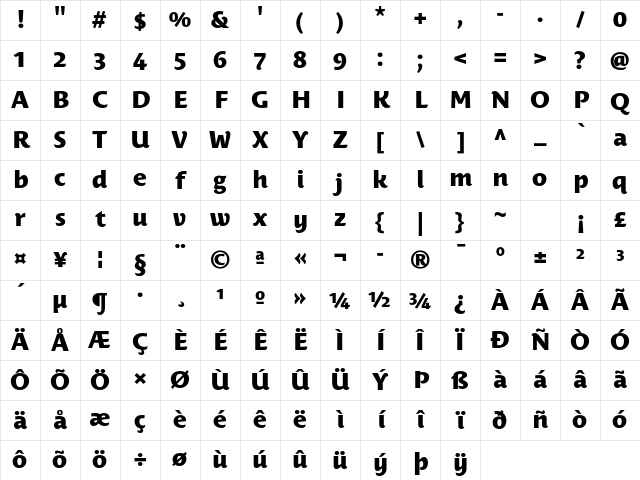
Costa Ptf ExtraBold Free Font
Costa Ptf ExtraBold
Designer: Jean Francois Porchez
Design Context for Costa Ptf
Costa Ptf is a composed and adaptable typeface that performs quietly and consistently across a wide range of design contexts. Its bold stroke weight gives it real presence on the page.